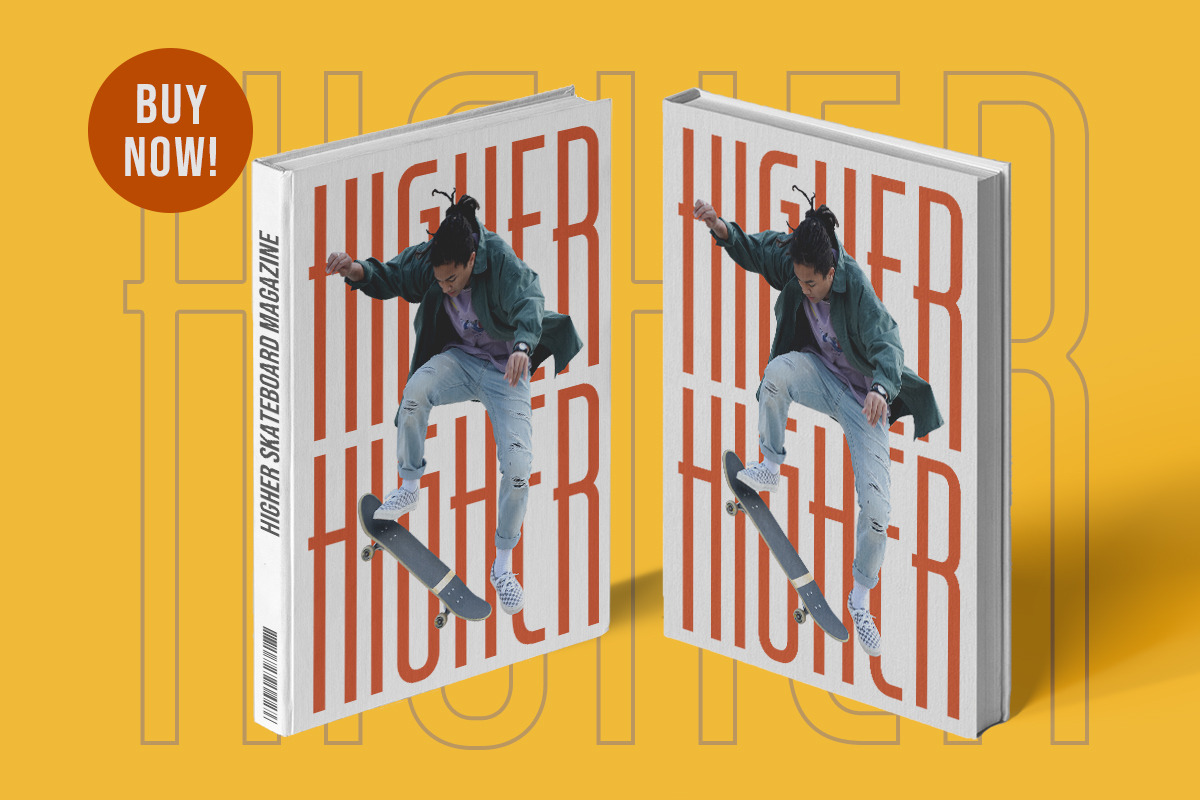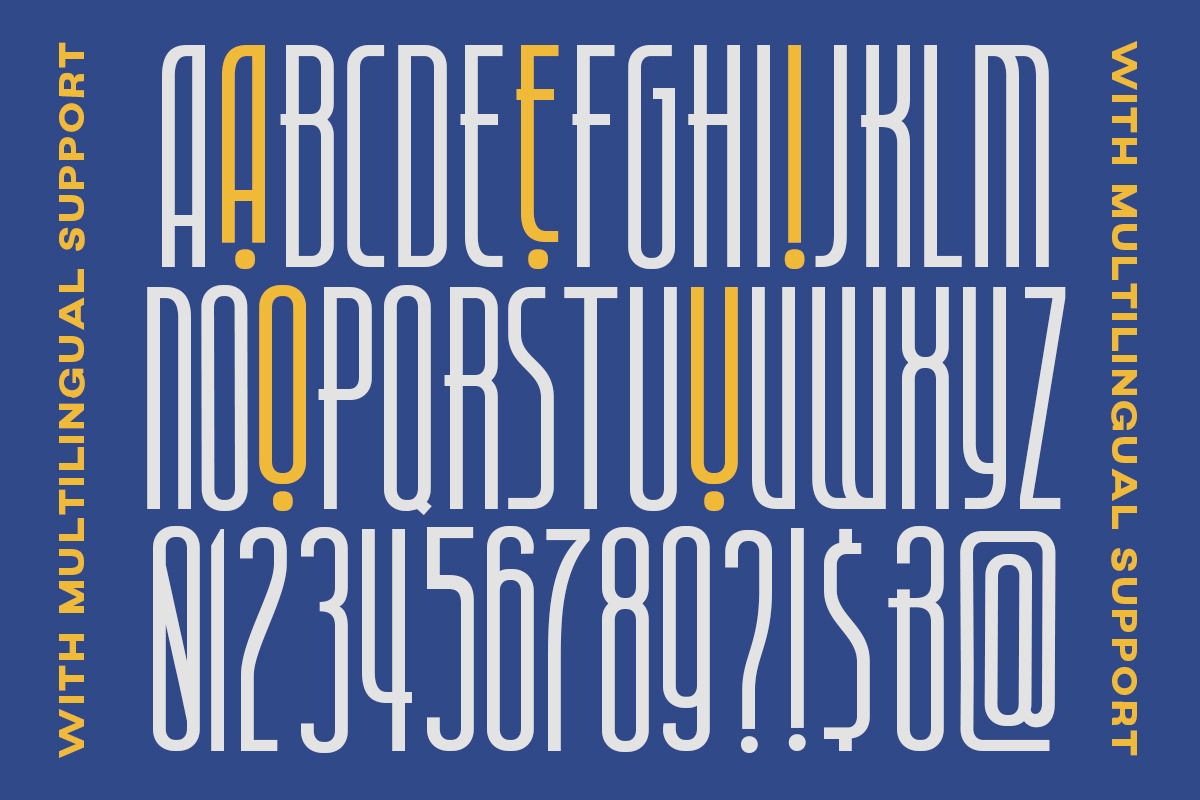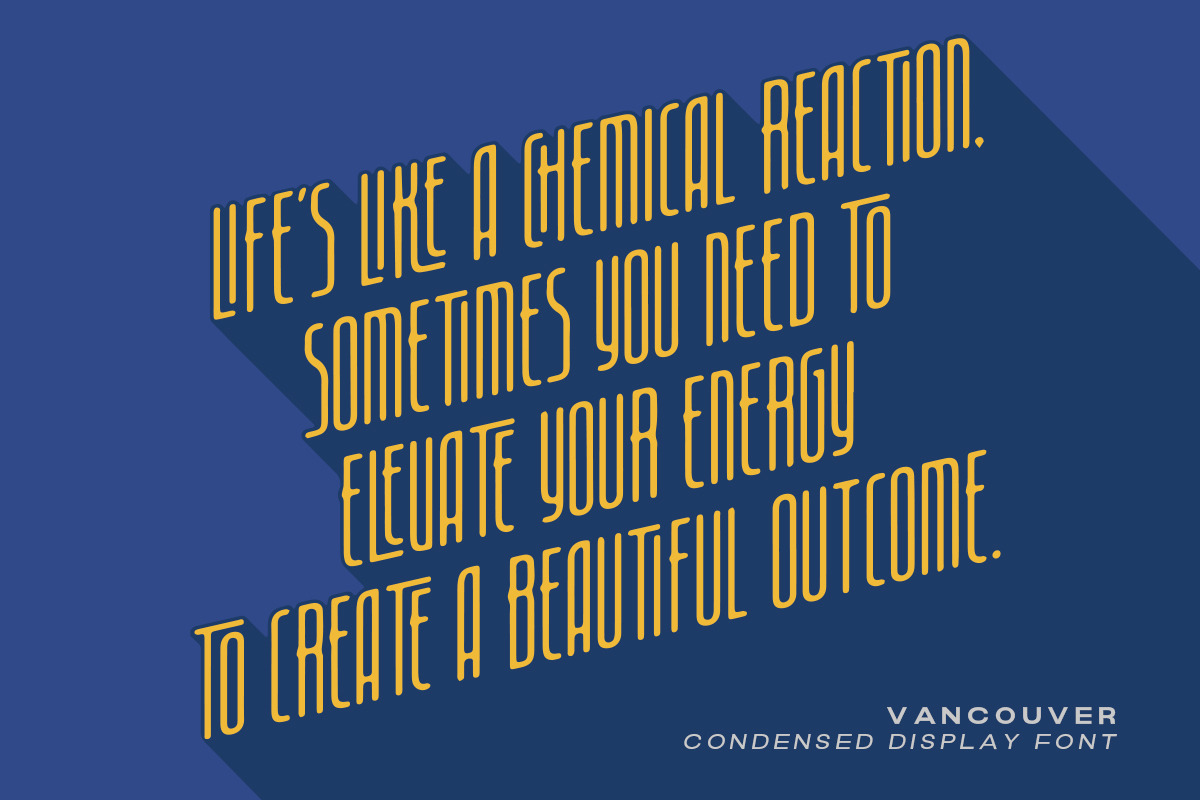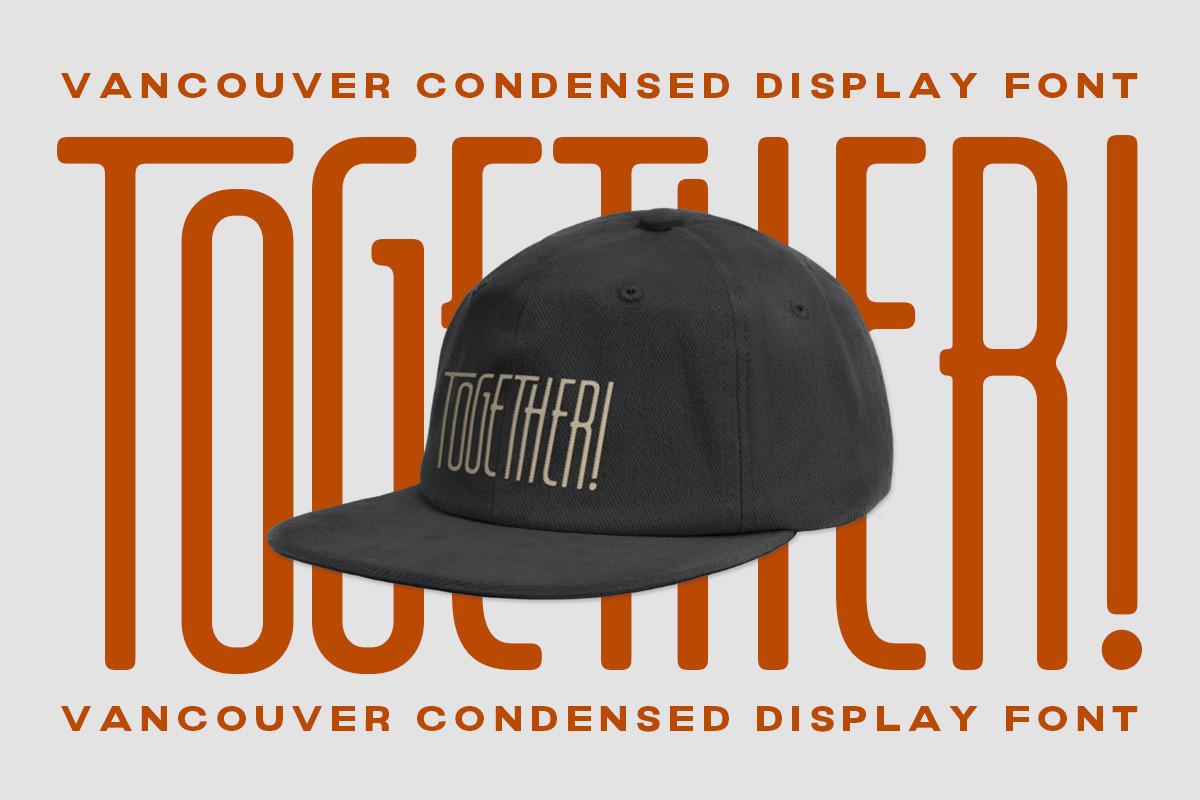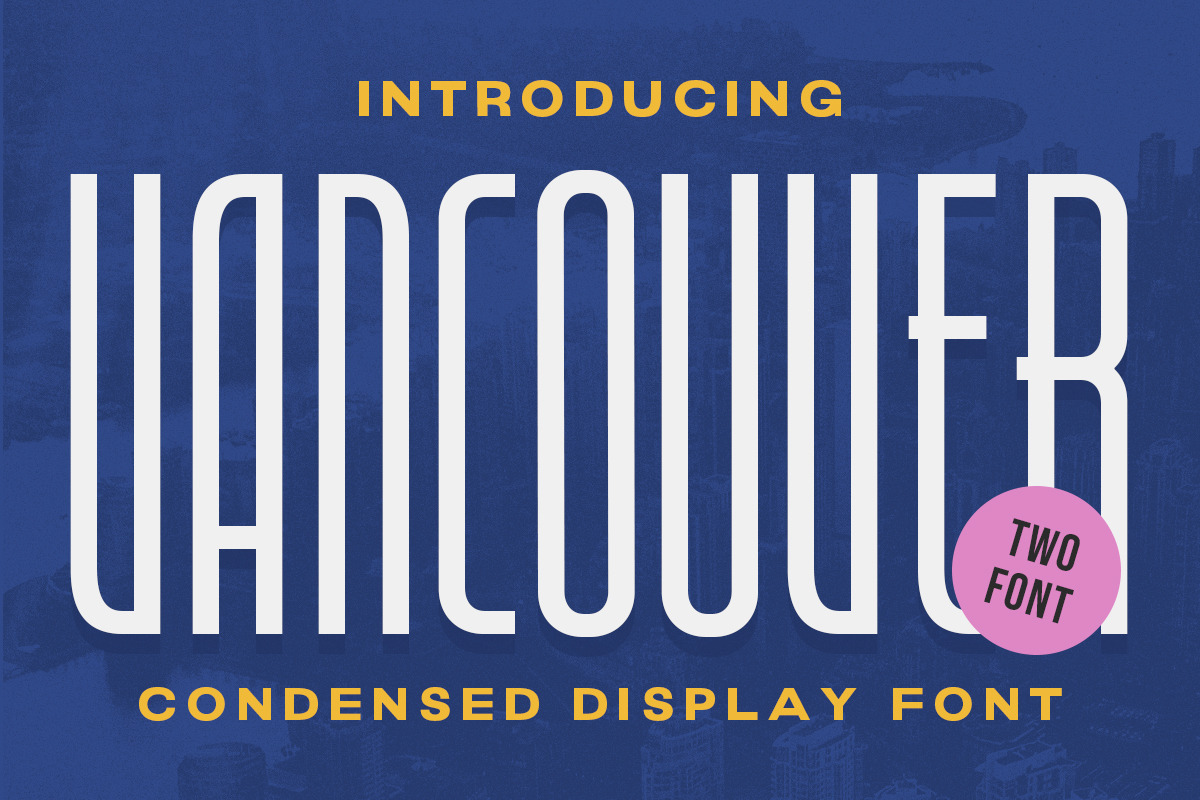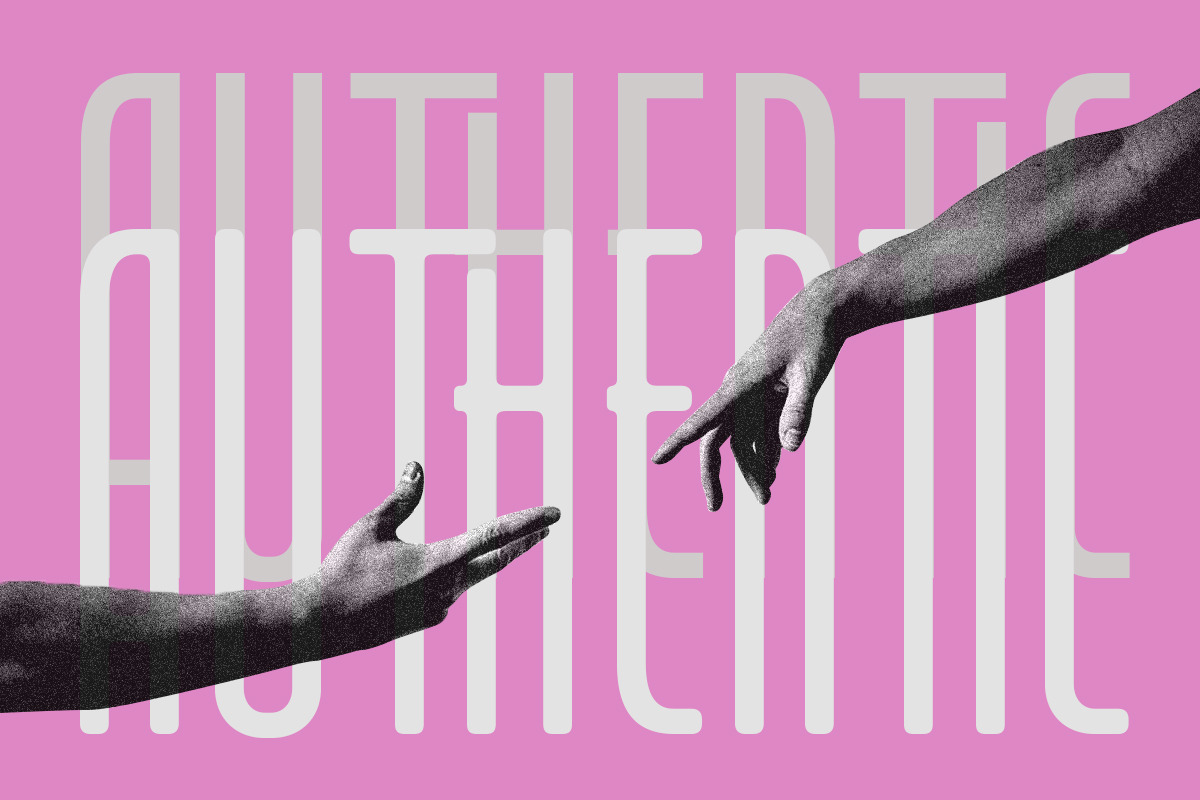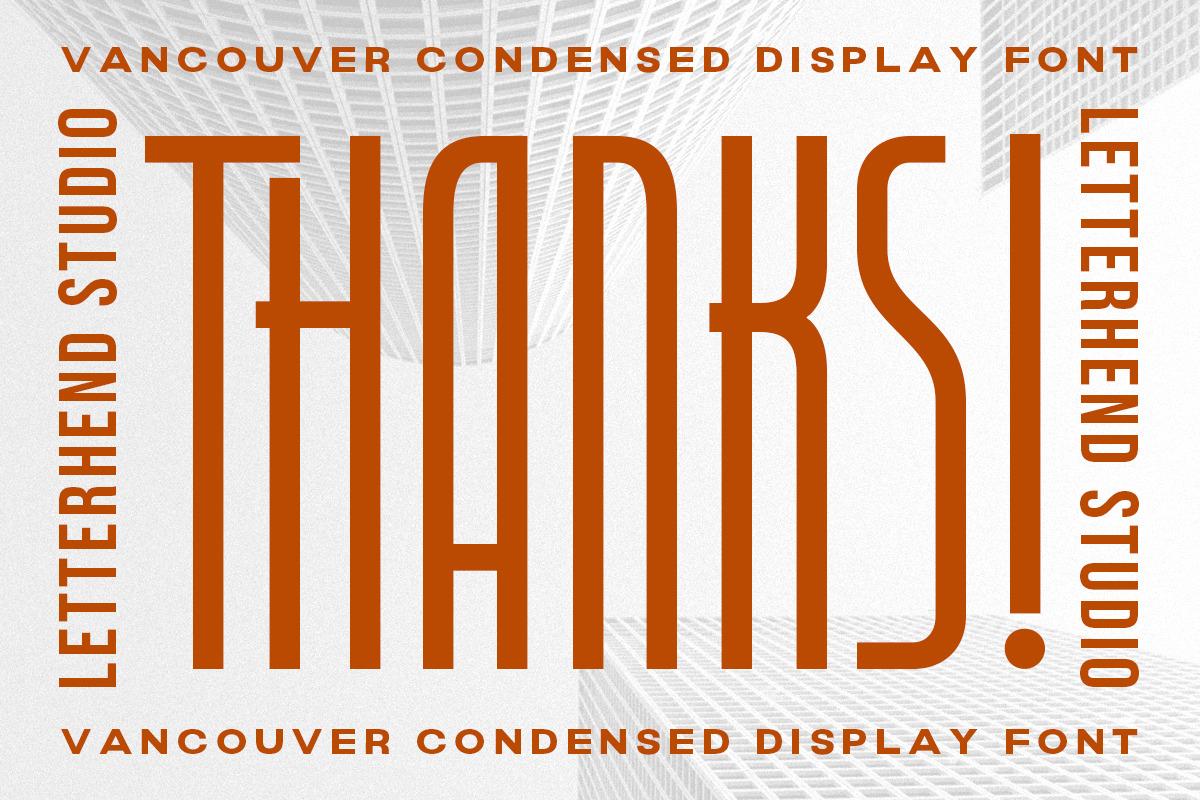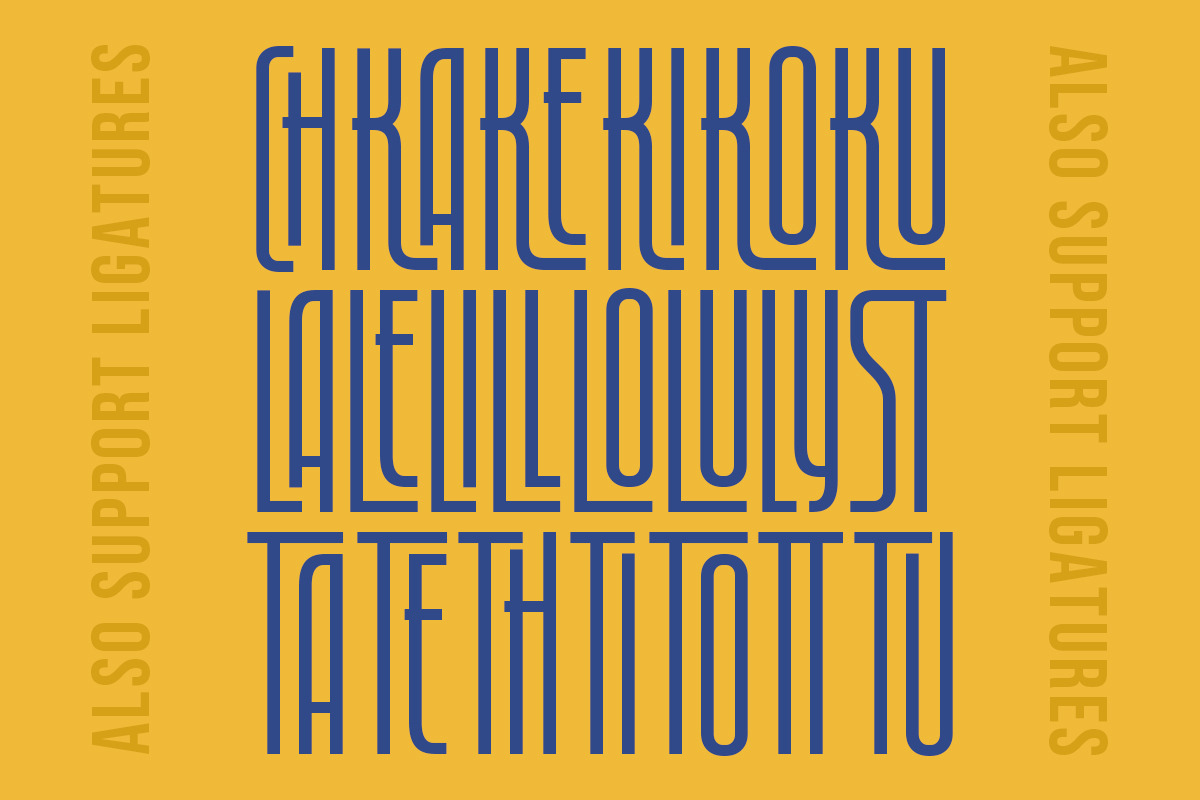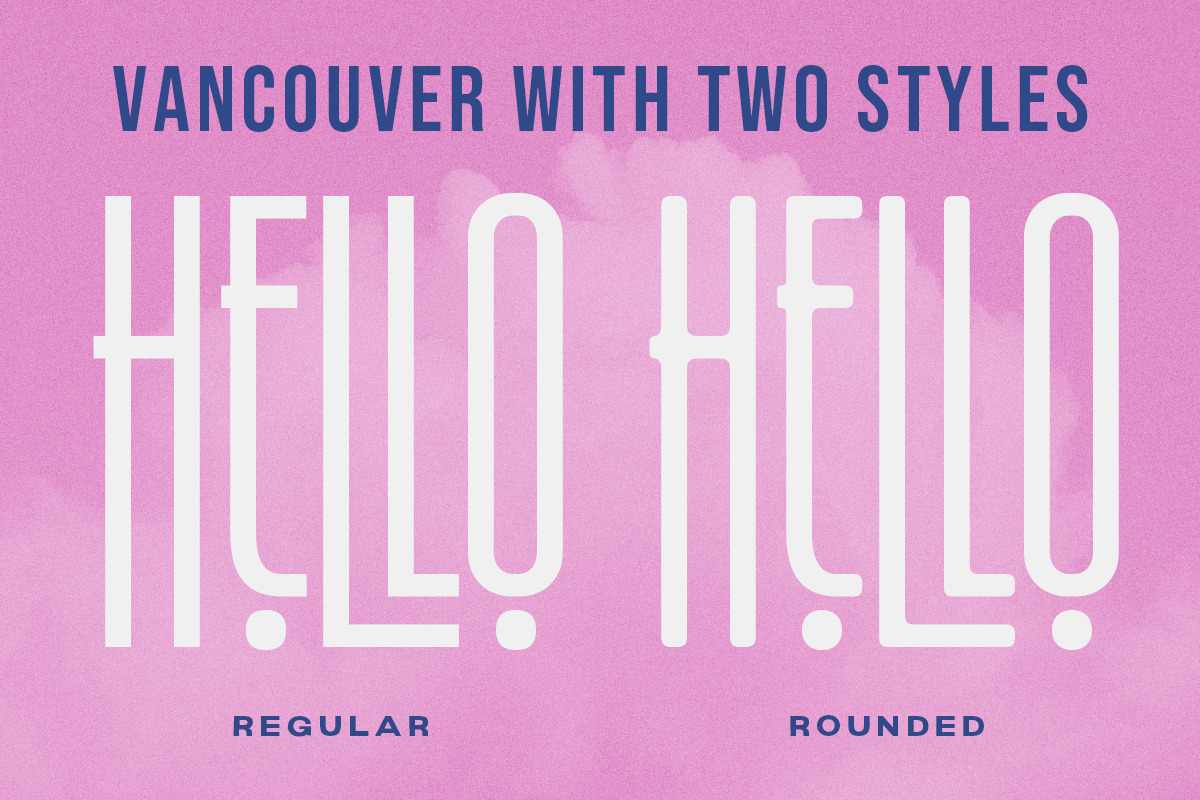
Vancouver - Condensed Display Font
Introducing the sophistication of modern typography with Vancouver - Condensed Display. This font embodies the essence of modernity, allowing your words to command attention on every page. Its condensed form and contemporary design make a striking impression, while maintaining readability and professionalism.
Whether it's fashion magazines, cutting-edge websites, or sleek branding materials, Vancouver confidently stands out, commanding attention with its modern editorial flair. Let your creativity soar with a font that embodies the essence of modernity and sets your designs apart from the rest.
- Alternates Characters